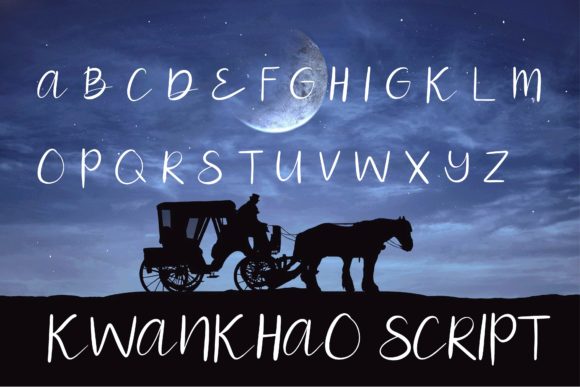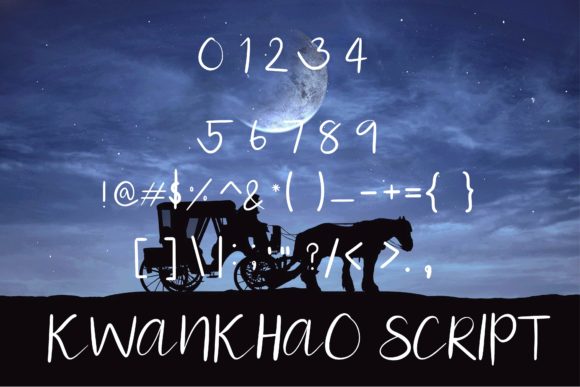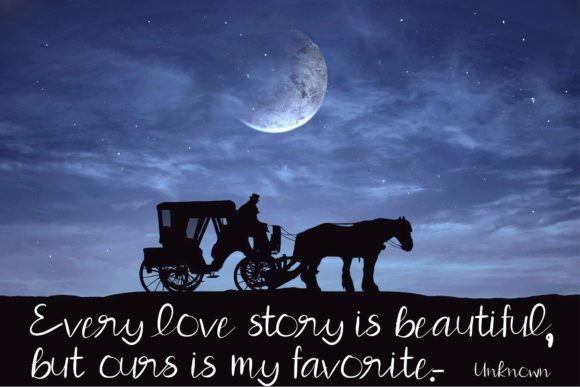
Introduction to Kwankhao  Font
Kwankhao Script is a magical script font carefully created with a touch of elegance.
Use this gorgeous and unique font to bring any DIY project to life .
Key Features of Kwankhao  Font
Why Choose Kwankhao  Font?
Kwankhao  Font offers exceptional quality and versatility, making it a valuable addition to your design toolkit. Whether you’re creating for personal projects or commercial use, Kwankhao  Font delivers professional results.